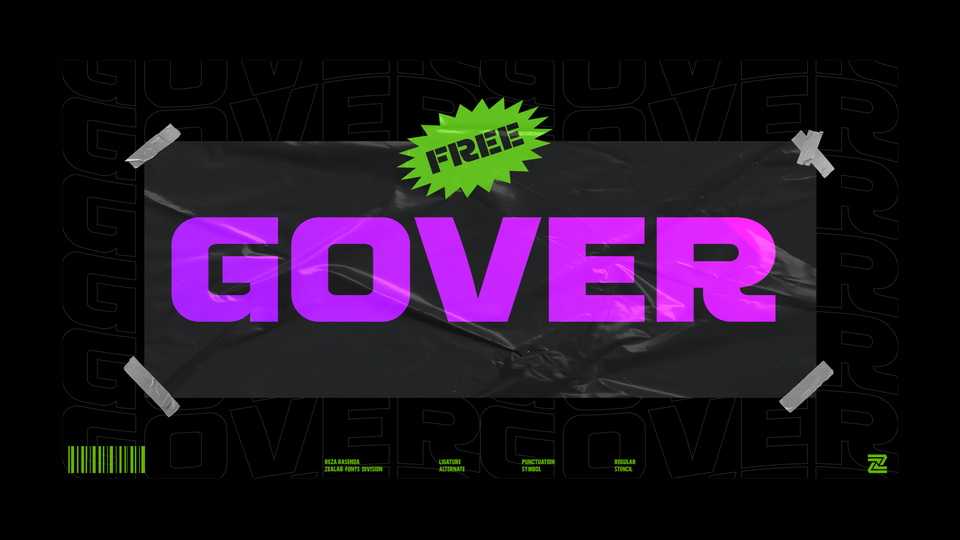
Download Gover font, a multipurpose display typeface, a combination between futuristic and urban style. Gover is well suited for use in the poster, for logos, titles, packaging, web design, apps & much more.